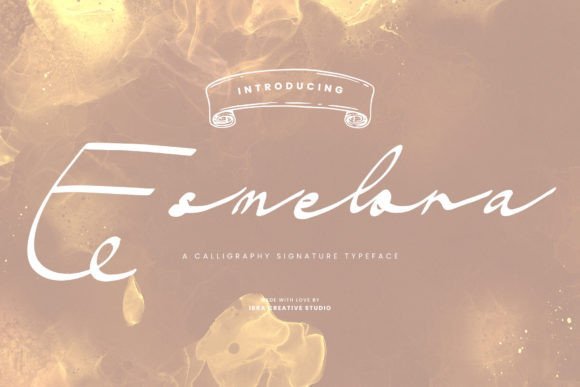
Introduction to Esmelora Font
Esmelora, a captivating calligraphy signature typeface, exudes elegance and refinement with its graceful strokes and fluid lines.
Each letter is meticulously crafted to emulate the artistry of a hand-written signature, creating a sophisticated and personal touch Esmelora’s delicate curves and stylish flourishes lend an air of timeless beauty to any design, making it an ideal choice for invitations, branding, and luxury-oriented projects.